The right Halloween font depends a lot on tone — a haunted house flyer and a kids’ trick-or-treat invitation need very different letterforms, even though both are technically “Halloween.” Deciding whether a project needs to feel scary or friendly is widely recommended as the first step before picking a font — a children’s party calls for something whimsical, while a haunted house ad needs something closer to menacing. Here are nine Twinletter options that cover that whole range, from genuinely scary to playfully fun.
Geskon — a “mystery font” built for horror and scary-themed projects specifically, positioned for invitations, banners, posters, and scary titles that lean into fear rather than fun.
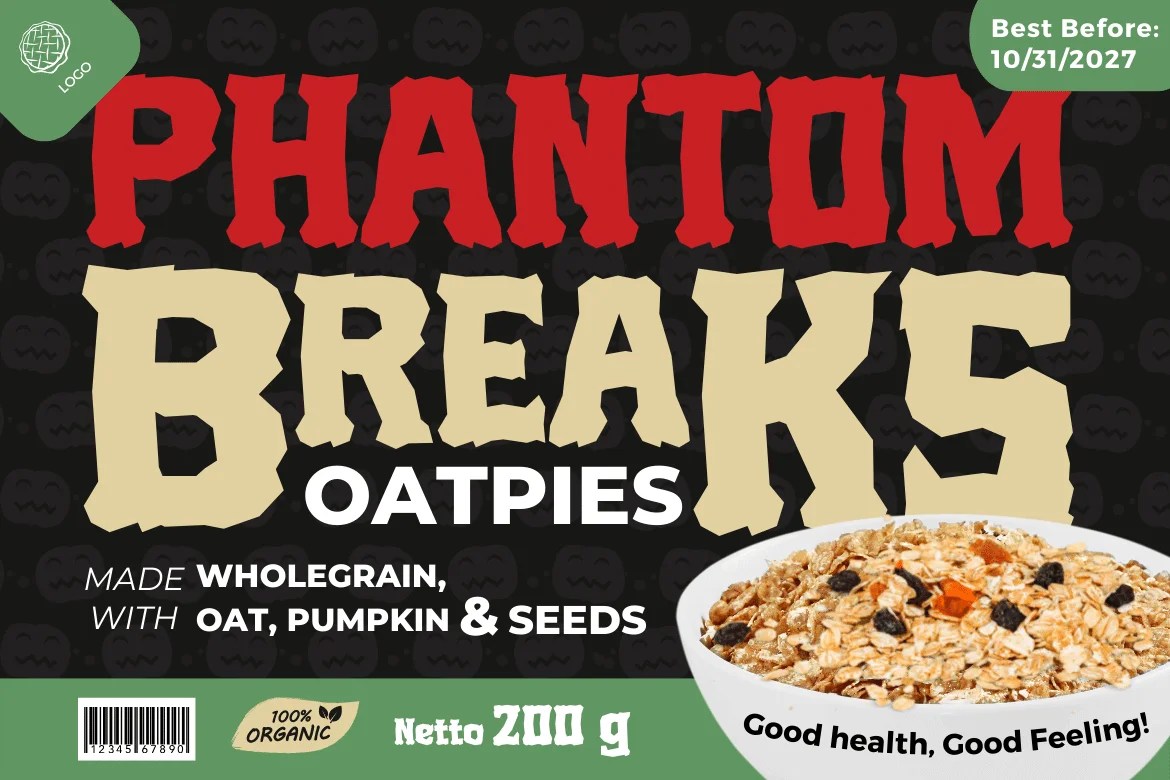
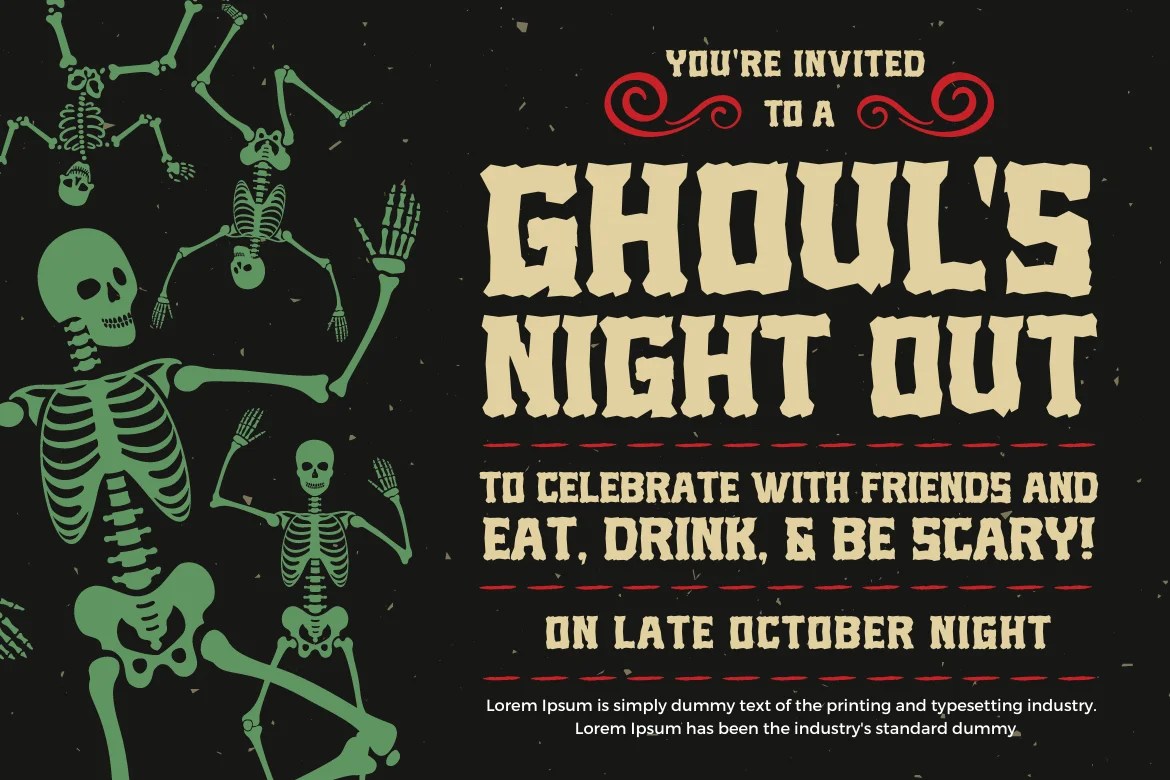
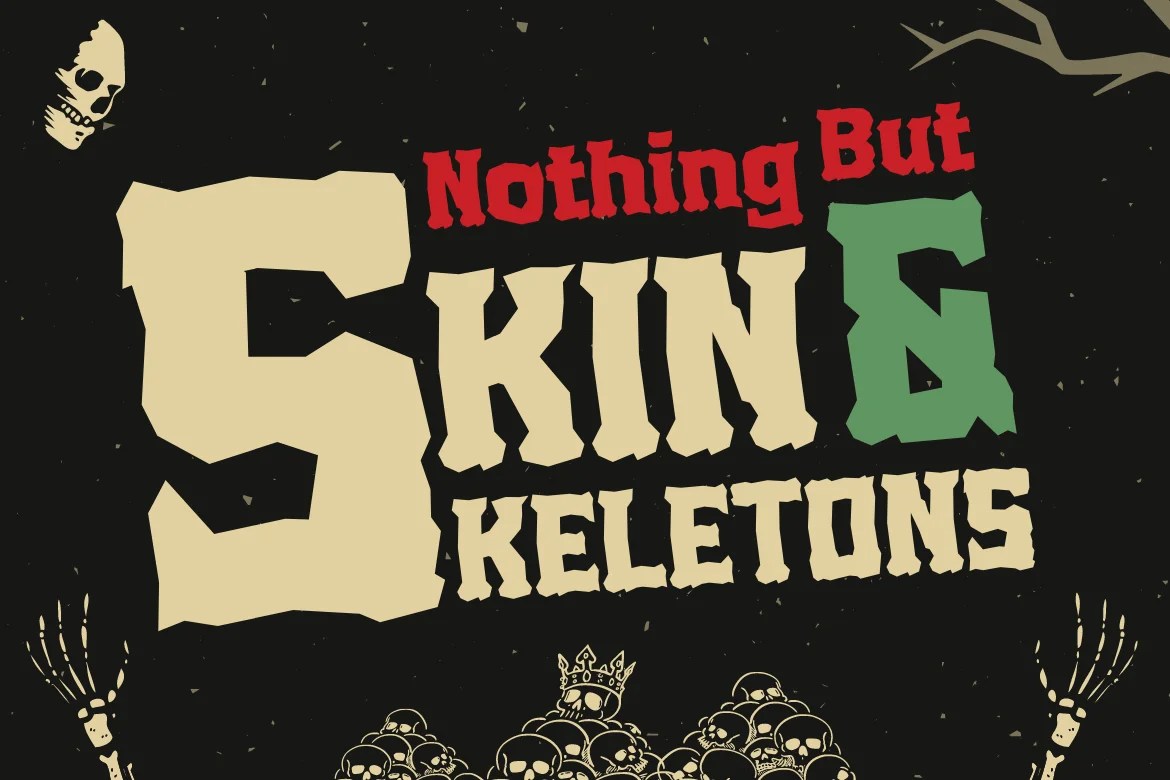
Firwaen — similarly horror-focused, explicitly called out for Halloween signs and decorations alongside party invitations, cards, and posters.
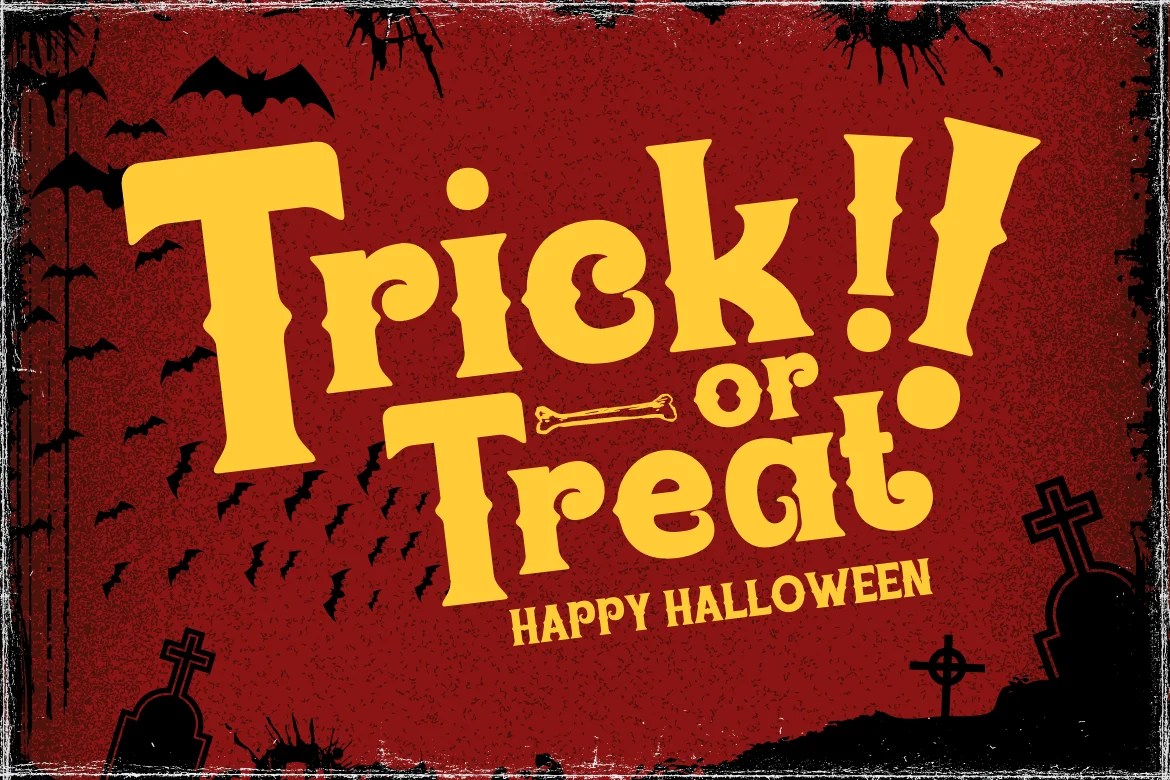
Bhoory — a bold Halloween font built for powerful text, logos, and headlines, suited to flyers and posters that need real visual weight and presence.
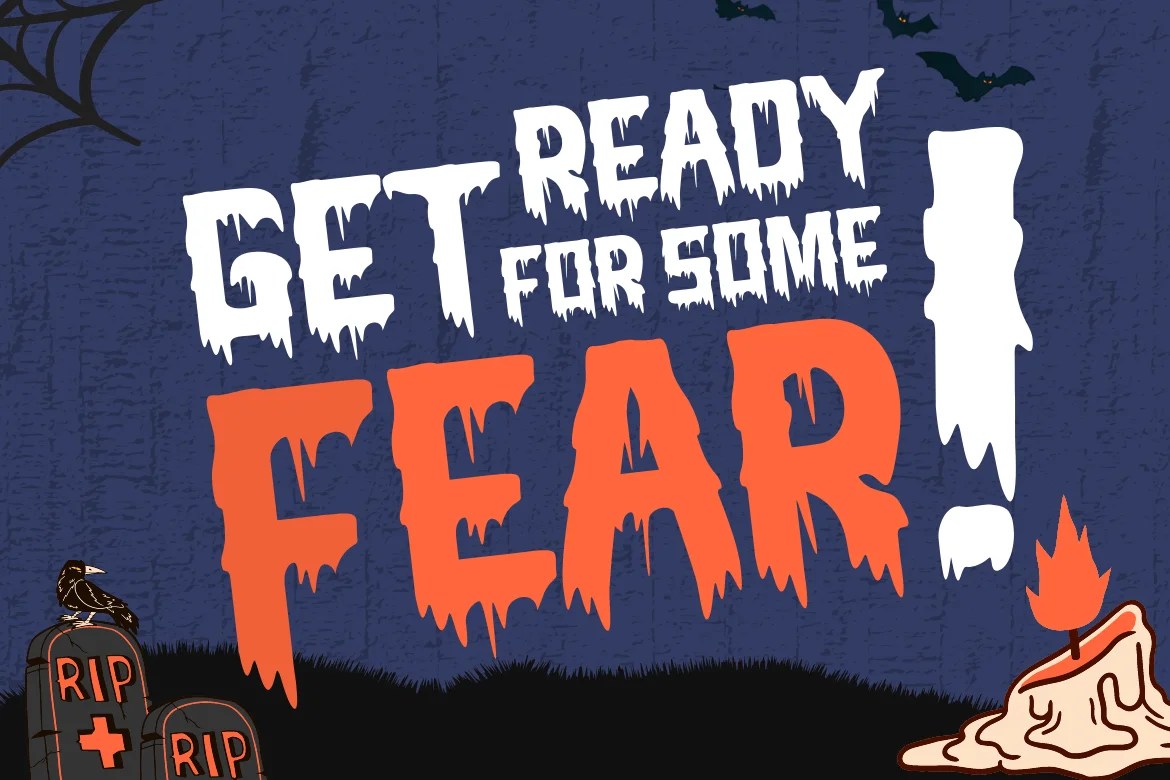
Rukinax — described as “human readable,” a more legible, practical option for party invitations, cards, and posters where clarity matters as much as spookiness.
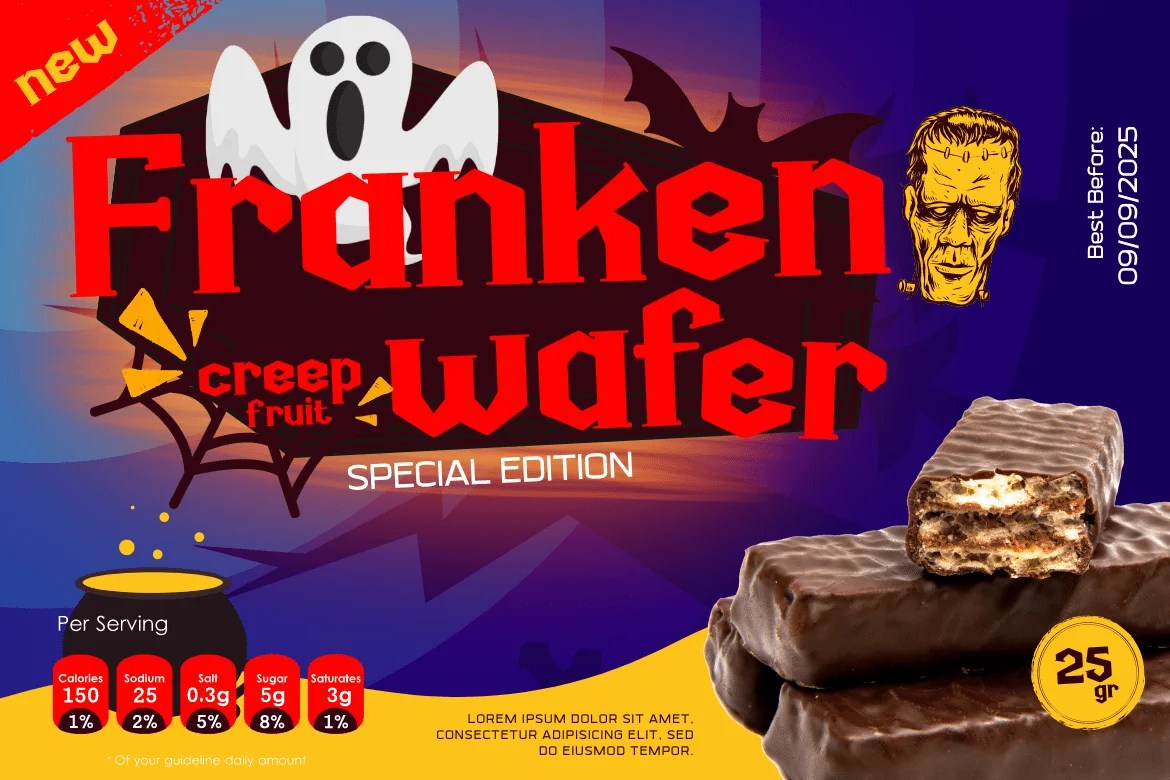
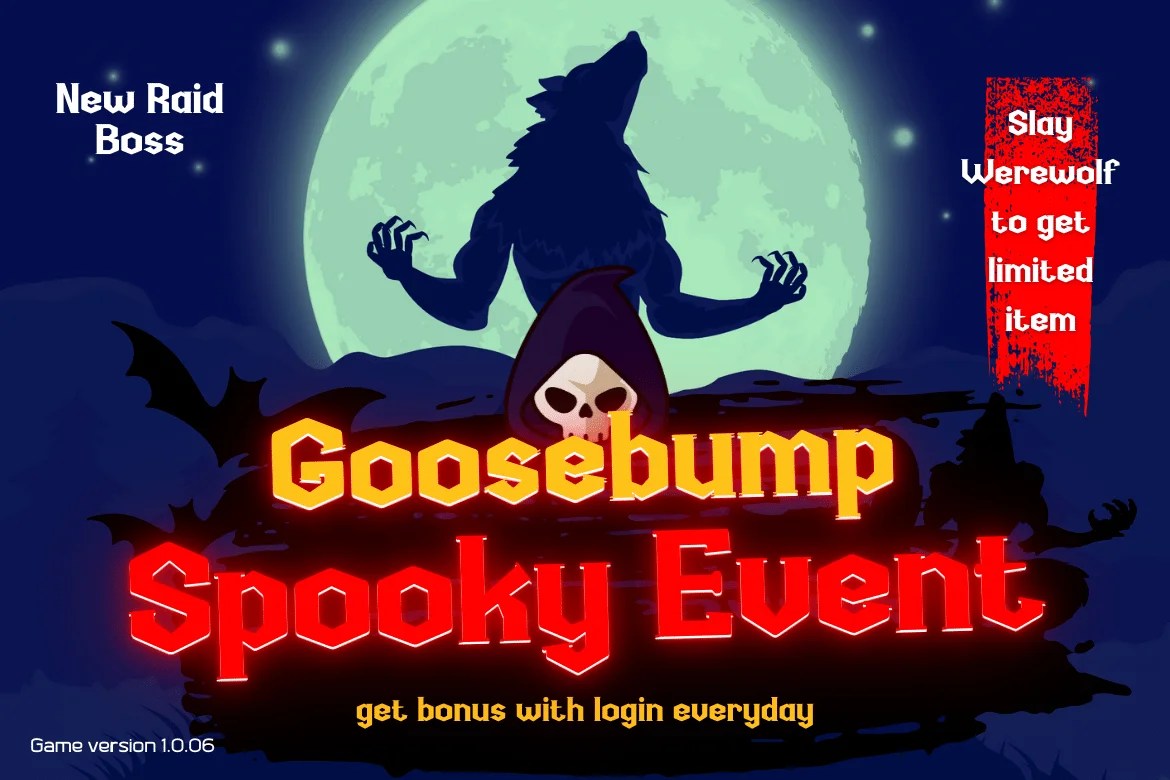
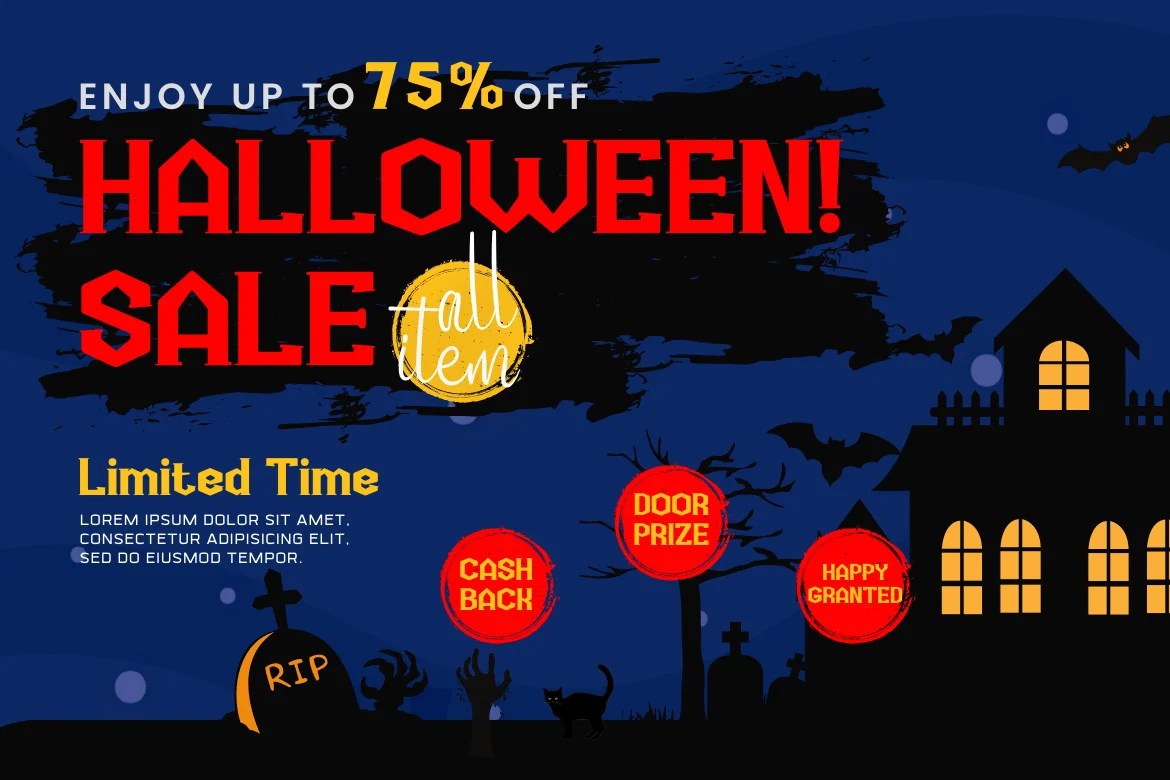
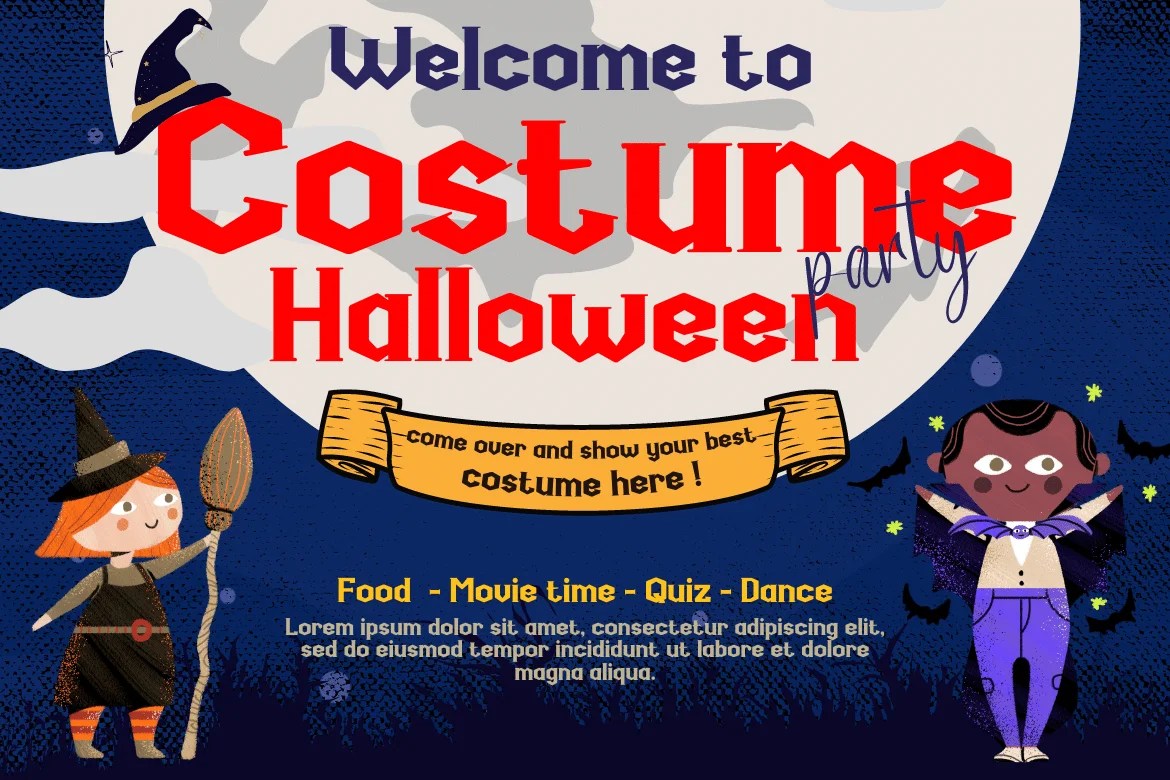
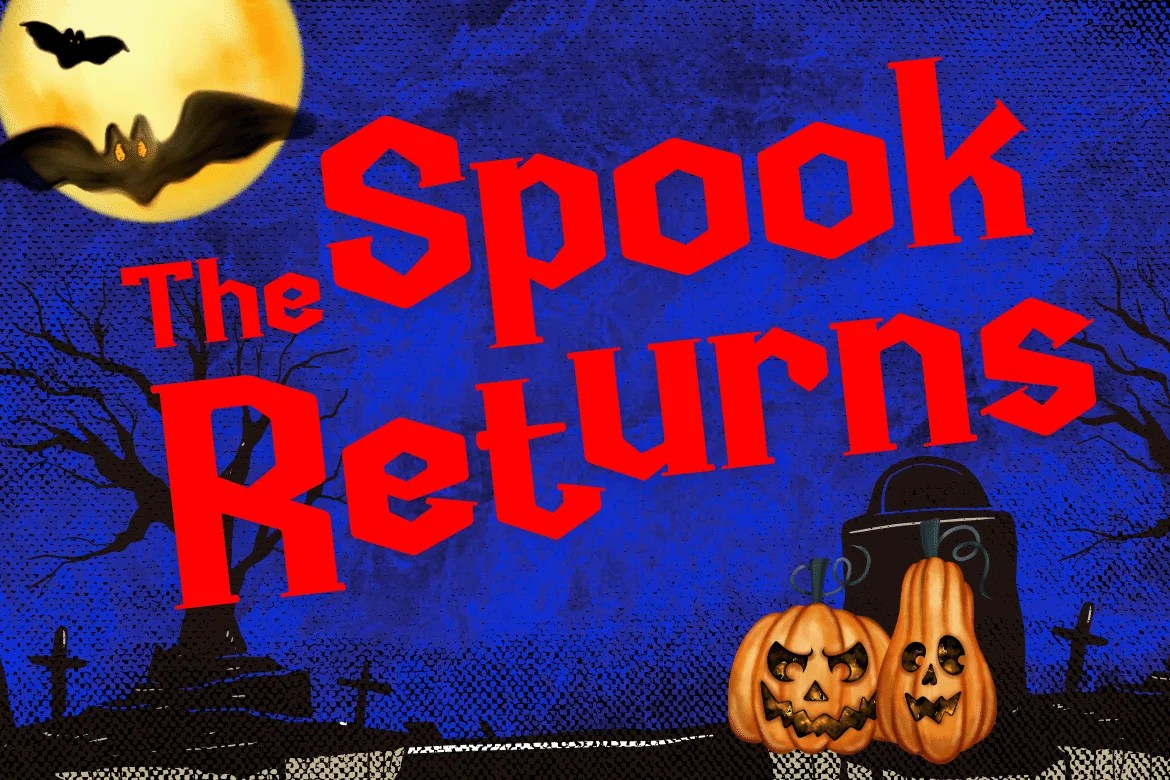
Anehik — leans toward fun rather than fear, positioned to make Halloween parties feel lighthearted and to bring a smile rather than a scare.
Haweni — pairs with Twinletter’s Halloween-themed templates for a party-ready, all-in-one design starting point.
Kehunix — built for fun Halloween invitations and party posters, with a straightforward setup for quick projects.
Getih West — explicitly positioned as more than just a Halloween font, also suited to snowboarding gear and general product logos, useful if the same seasonal design needs to extend into other work.
Kinuhi — similarly versatile, called out for snowboarding gear and design agency logos alongside Halloween party invitations.
Rather than force artificial similarities across genuinely different fonts, here’s what’s still consistent across every option in this Halloween font collection:
If you’re still weighing which Halloween font fits your project, here’s a quick way to narrow it down:
Is there one Halloween font that works for both scary and fun projects? Not really — this collection intentionally spans that range, so it’s worth picking based on tone first (horror vs. playful) rather than assuming one font covers both ends well.
Can a Halloween font be used for projects outside the Halloween season? Yes for some — Getih West and Kinuhi are specifically positioned as useful beyond Halloween, for things like snowboarding gear and general logo design.
Do these fonts support languages other than English? Yes, each Halloween font in this collection includes multilingual support across 19 European languages, making them usable for international seasonal campaigns.